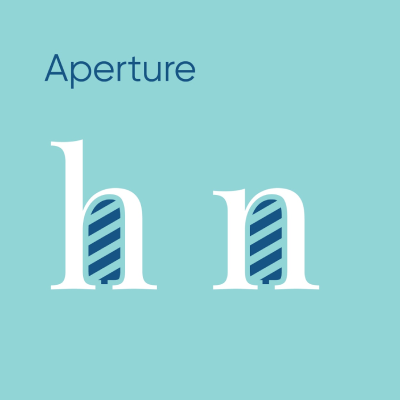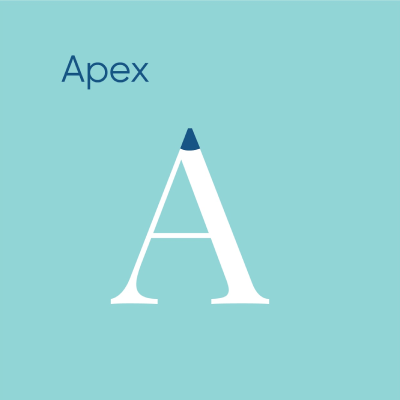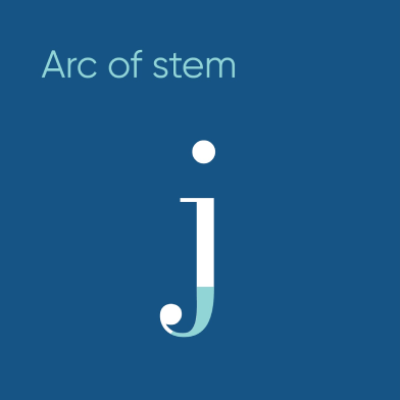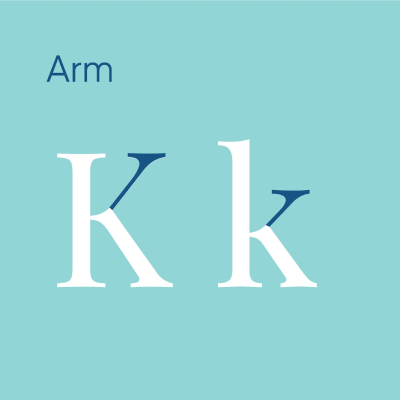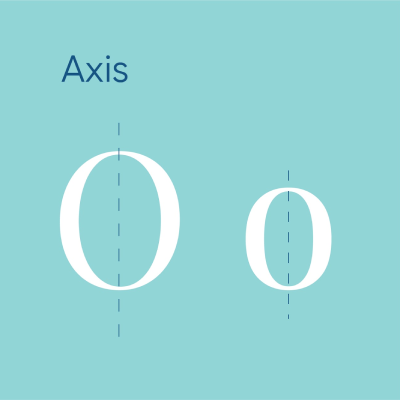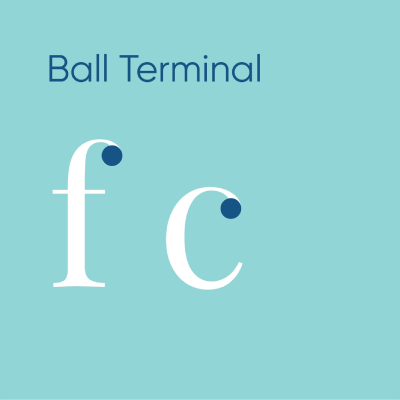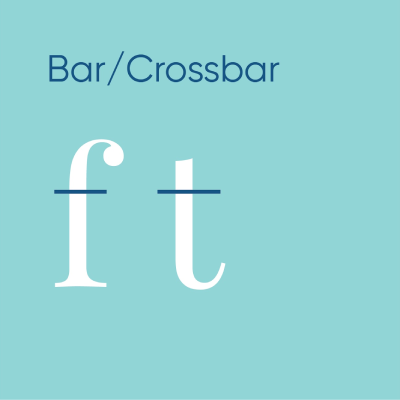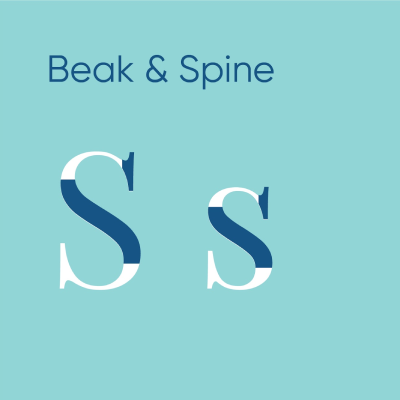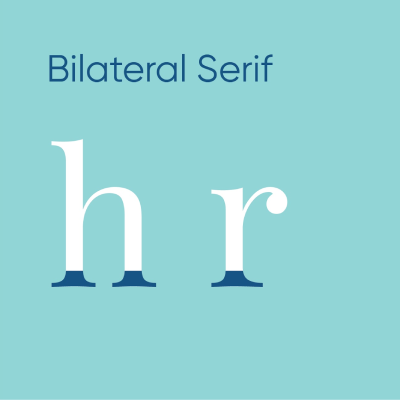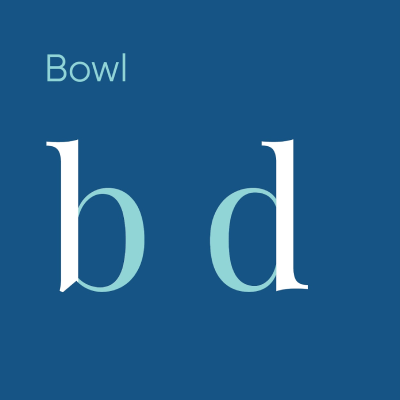
What is anatomy of typeface?
Just like how we have eyes, ears, nose, arms and legs that construct a human body similarly there are certain parts of a character that contributes to the overall shape of a character and also helps in defining the overall personality of a typeface.
By learning anatomy of typeface as a designer we will be able to know the intricate differences between different typeface categories and understand typeface classifications better.
As a designer when we understand typeface classifications we can choose a typeface wisely that suits the client, requirement, end user and the purpose fulfilling the very effort to convey a message.
Baseline - The line on which a character stands, sits or hangs is called as baseline.
Capline - The line on the top of uppercase characters and some standing lowercase characters such as f, l and d is called as capline.
Meanline - The line on the top of sitting and hanging lowecase characters such as c, x, g and y is called as meanline.
Descender line - The line at the bottom of hanging lowercase characters such as j, g and y is called as descender line.
Descender - Any part of a character that falls below the baseline is called as descender.
Ascender line - The line on the top of the some uppercase and standing lowercase letters that exceed above capline is called as ascender line.
Descent line - The line that comes at the bottom of the invisible space after the descender line is called as descent line.
Ascent line - The line that comes at the top of the invisible space above the ascender line is called as ascent line.
Cap height - The distance between the baseline and the capline is called as cap height.
x-height - The distance between the baseline and the meanline is called as x-height.
Body height - The distance between the descent line and the ascent line is called as body height.
Stem - The vertical line from which rest of the parts of a character branches out is called as stem.
Diagonal Stroke - In the above image your eyes moved from left to right because the distance between the points kept decreasing as we moved towards right. This is how we use points to re-direct viewer's attention.
Hairline - The thinner line among the two main strokes is called as hairline. They are majorly found in Serif typefaces.
Cross Stroke - The horizontal line connecting between two stems of a character is called as cross stroke.
Bar/Crossbar - The horizontal line that crosses or branches out from the stem of a character that does not connects to another stem or is open ended is called as bar or crossbar.
Bowl - The curved line that branches out from a stem that forms an enclosed or open space is called as bowl.
Counter - The enclosed space created by a bowl is called as counter.
Open counter - The open space created by a bowl is called as open counter.
Aperture - If the open counter is opened upwards or downwards then it is called as aperture.
Serif - The decorative projection at the end present in some typefaces is called as Serif.
Bilateral Serif - If serif is going to extend symmetrically on both the sides of the stem then it is called as bilateral serif.
Sans Serif - Typefaces that have flat ends without any decorative piece at their ends are called as Sans Serif.
Slab Serif - If the Serif does not tapers towards the end and has equal thickness of the stem or stroke then it is called Slab Serif.
Terminal - The curved tapering end without any serif in some lowercase characters like t and e is called as terminal.
Ball Terminal - The rounded end of serifs in some lowercase characters such as f and c is called as ball terminal.
Teardrop Terminal - The teardrop shaped end of serifs in some lowercase characters such as r is called as teardrop terminal.
Single Story Characters - If the characters has only one counter then it is called as single story characters.
Double Story Characters - If the characters has two counters then it is called as double story characters.
Apex - The pointed end at the top of a character where two strokes meet is called as apex.
Vertex - The pointed end at the bottom of a character where two strokes meet is called as vertex.
Crotch - The angle between a vertex is called as Crotch.
Leg - The diagonal stroke traveling downwards that extends from a stem or bowl is called as leg.
Arm - The diagonal stroke traveling upwards that extends from a stem is called as leg.
Shoulder - The curved stroke traveling upwards and then travels downwards, extending from a stem is called as shoulder.
Eye - The counter in the lowercase character e is called as eye.
Ear -
The teardrop terminal extending from the bowl of lowercase double story g is called as ear.
Loop -
The second bowl in the lower deck of lowercase double story g is called as loop.
Link -
The curved part connecting between the bowl in upper deck and the bowl in lowerdeck in lowercase double story g is called as link.
Conclusion
Anatomy of typeface is critical knowledge that designers should possess because once a designer knows how to deploy the minute details and nuances in these typefaces, they can not only create visually pleasing and aesthetic designs but also deeply meaningful and impactful ones. With the advancements in technology, there is an even greater push and expectation towards the christened limits of legibility, expression, and visual communication. By learning these very inconspicuous things, one will be unlocking a great many opportunities from type-creating wonderful and remarkable visual communication.